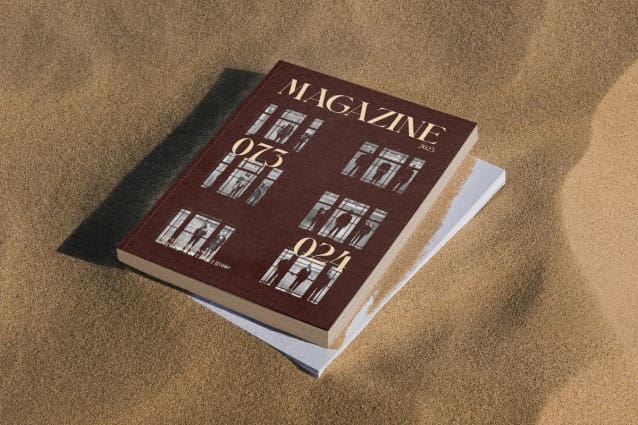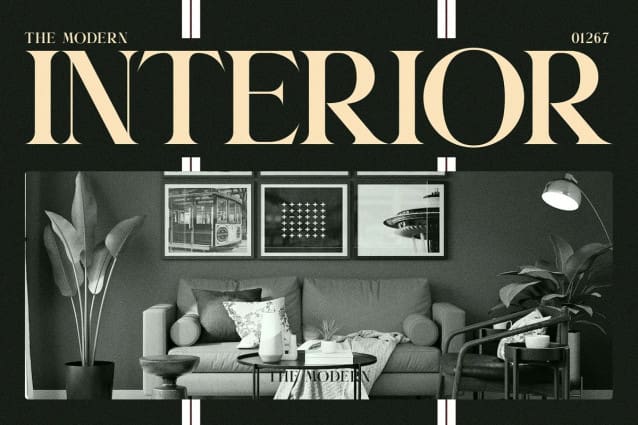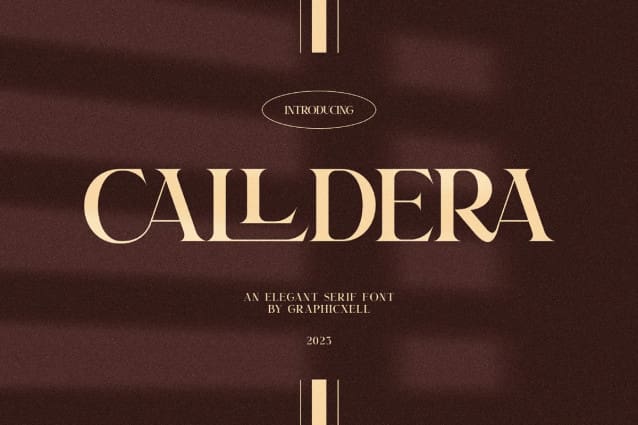
Calldera Font
Calldera Font is a unique and very elegant font for branding and logo designs. An elegant serif typeface that has many alternate and ligature features combined with a classy and modern calligraphy style. This font is very suitable to be combined with an elegant design and combined with the currently trending color, namely Crimson Chery, as I show. This type of font is very suitable for your various needs such as branding projects, logos, wedding designs, social media posts, advertisements, product packaging, product designs, labels, photography, watermarks, invitations, stationery, and any project, created at a high level. high readability. You will not be disappointed if you buy this font!!